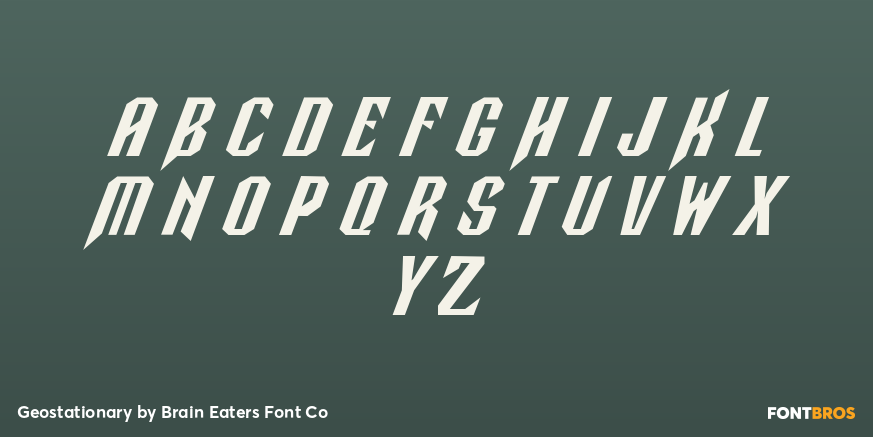
Geostationary
Font Family by Brain Eaters Font Co
With this design the art deco era crashes and explodes into the mid-century modern era, and the wreckage is a smooth success!